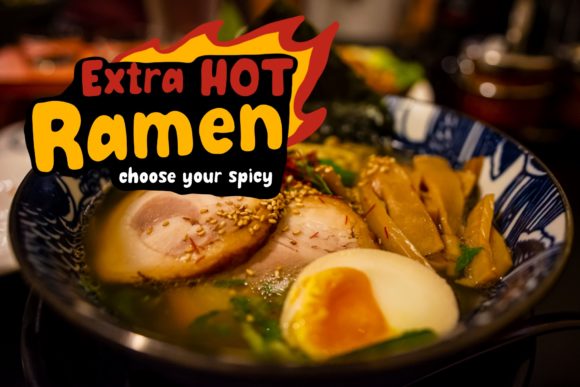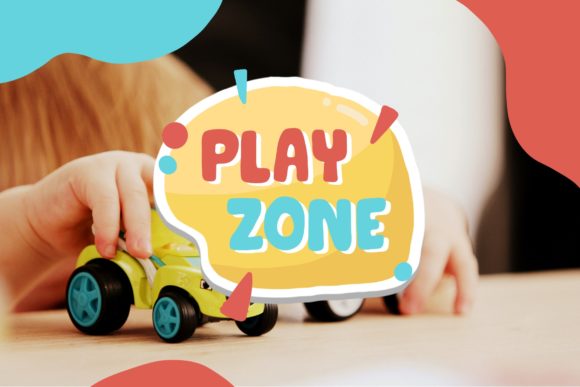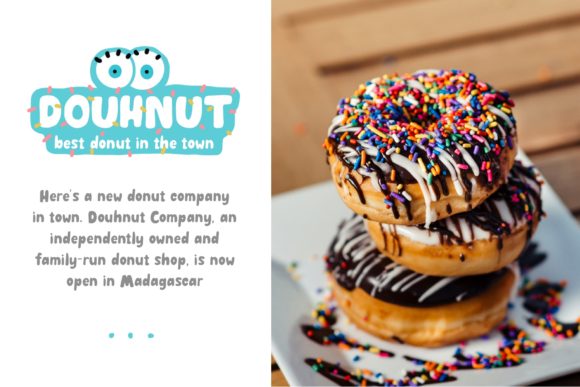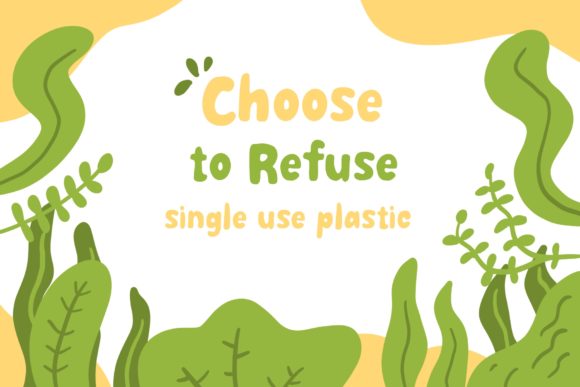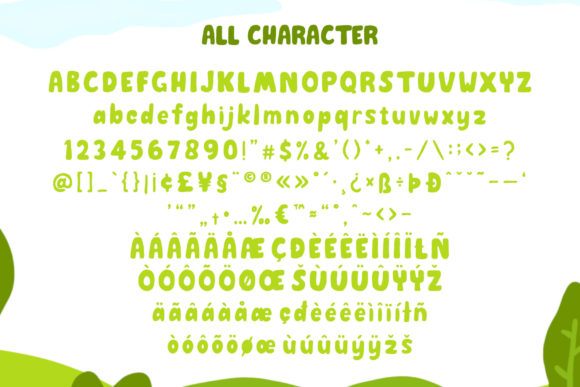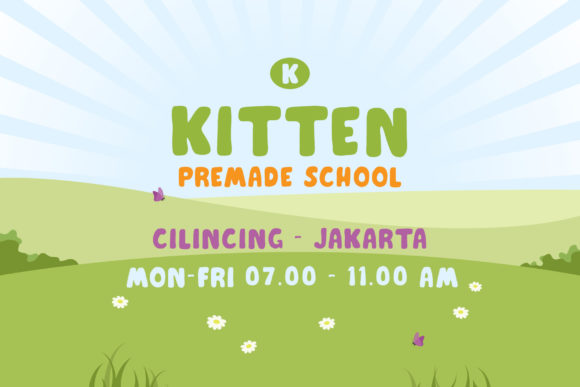
Introduction to Paymon Font
Paymon is a fun and bouncy display font.
This modern and neat styled font will elevate each of your designs to the highest levels .
Key Features of Paymon Font